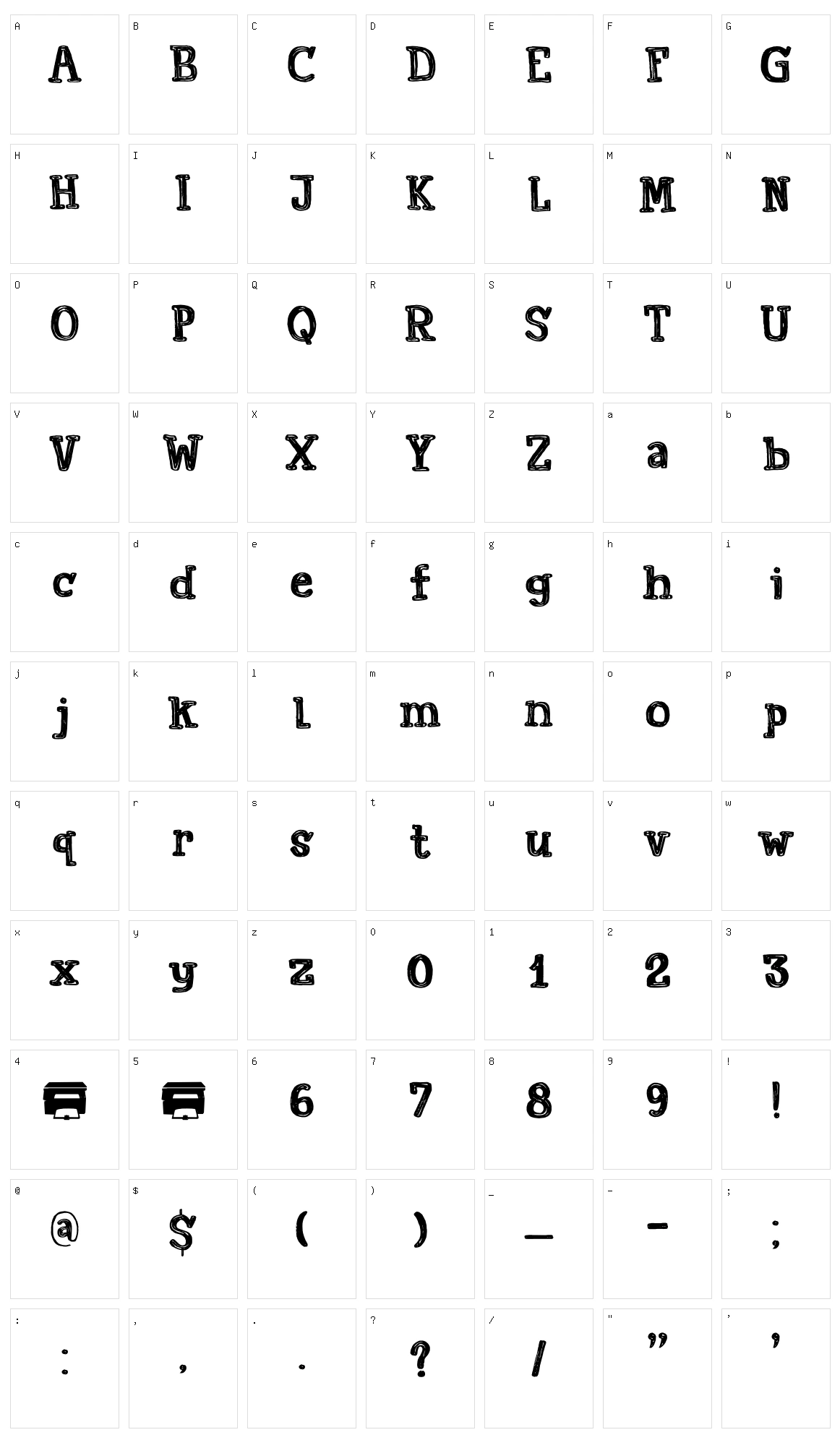
The free font Printout is carefully designed by Hanoded, showcasing a thoughtful balance of creativity and usability and falls under the Eroded font style. When you download the ZIP file, it contains only 172.1 KB of font files, making it lightweight and quick to download. Please review the license details below to understand permitted usage and distribution rights. If license information is not available, we recommend using this font for personal projects only or contacting the author directly for commercial usage permissions.